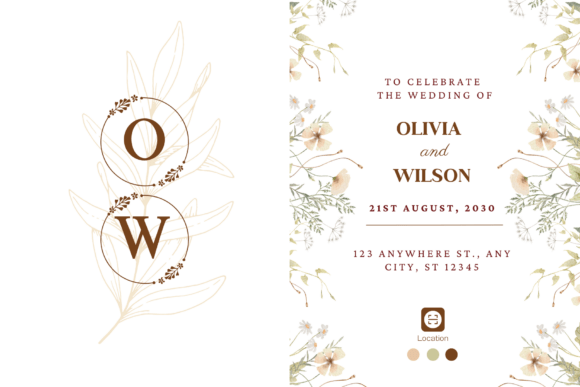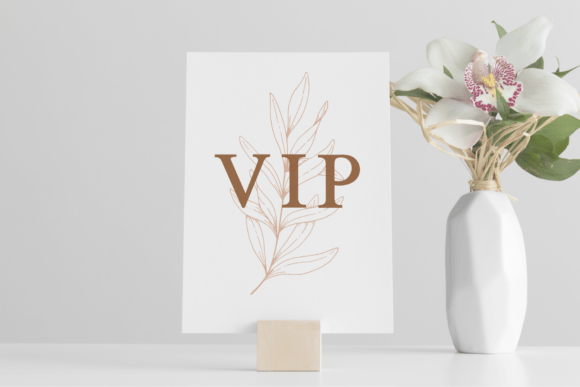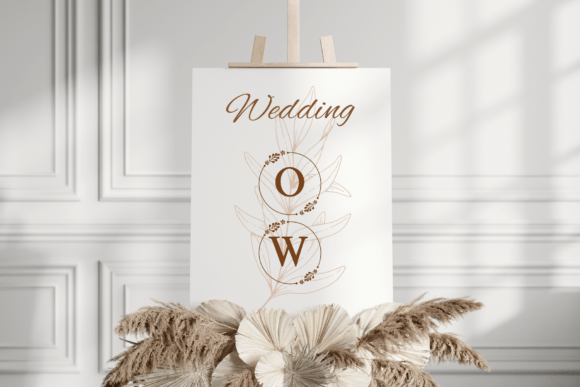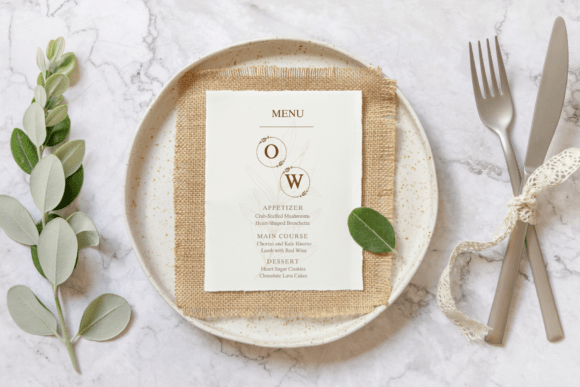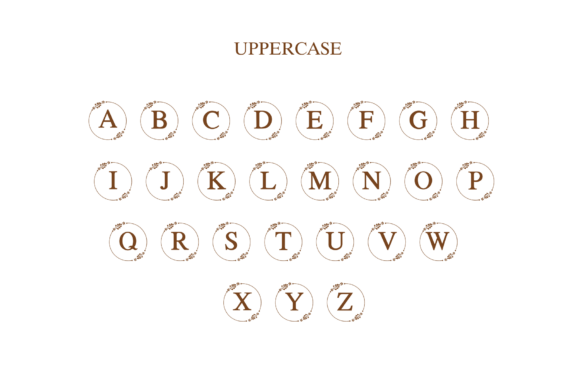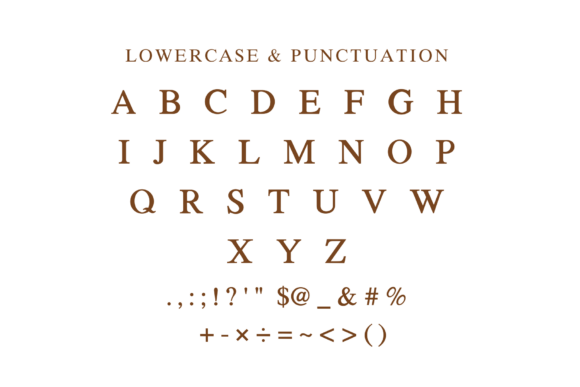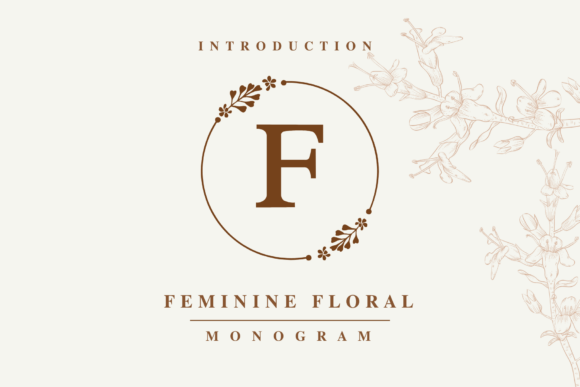
Feminine Floral Font: Elevate Your Designs with Elegance and Sophistication
In the world of typography, fonts play a crucial role in setting the tone and mood of a design. For special occasions like weddings, anniversaries, and baby showers, a font that exudes elegance and sophistication is essential. This is where the Feminine Floral Font comes into play. In this article, we’ll explore the beauty and versatility of this stunning font, perfect for designers and crafters looking to add a touch of charm to their creations.
What is Feminine Floral Font?
Feminine Floral Font, also known as Feminine Floral Monogram, is an exquisite font designed specifically for special occasions. Its unique feature is the decorative letters enclosed within a beautiful, round flower frame. This distinctive design element instantly adds a touch of femininity and whimsy to any project, making it an ideal choice for invitations, wedding cards, and other celebratory designs.
Key Features of Feminine Floral Font
- Elegant Design: The font boasts an elegant and sophisticated design, perfect for high-end events and celebrations.
- Decorative Letters: Each letter is carefully crafted with intricate details, adding a touch of luxury to your designs.
- Floral Frame: The beautiful, round flower frame surrounding the letters creates a stunning visual effect, perfect for wedding cards, invitations, and more.
- Versatility: This font can be used for a variety of projects, from digital designs to print materials, such as stationery, posters, and flyers.
Whether you’re a professional designer or a crafty DIY enthusiast, Feminine Floral Font is an excellent addition to your font collection. Designers can use this font to create stunning wedding invitations, save-the-date cards, and other celebratory materials for their clients. Crafters, on the other hand, can use it to create beautiful handmade cards, scrapbook pages, and other paper crafts.
Tips for Using Feminine Floral Font
- Pair with Neutral Colors: Combine the font with neutral colors like white, cream, or pastel shades to create a soft, romantic look.
- Experiment with Colors: Don’t be afraid to experiment with bold colors and patterns to create a more dramatic effect.
- Use for Headlines and Titles: Feminine Floral Font is perfect for headlines and titles, adding a touch of elegance to your designs.
- Mix with Other Fonts: Combine this font with other fonts to create a unique and visually appealing design.
Where to Use Feminine Floral Font
This versatile font can be used in a variety of projects, including:
- Baby shower invitations and decorations
- Anniversary cards and gifts
- Birthday cards and party decorations
- Digital designs, such as social media graphics and blog headers
Feminine Floral Font is a beautiful and elegant font designed specifically for special occasions. Its unique features, versatility, and charm make it an excellent choice for designers and crafters looking to add a touch of sophistication to their creations. With its decorative letters and floral frame, this font is sure to elevate your designs and make them truly unforgettable.
So, if you’re looking for a font that exudes elegance and whimsy, look no further than Feminine Floral Font. With its wide range of uses and applications, it’s an excellent addition to any font collection. Get creative and make your designs shine with this stunning font!